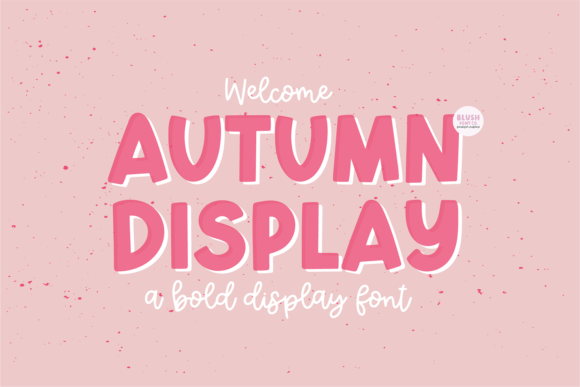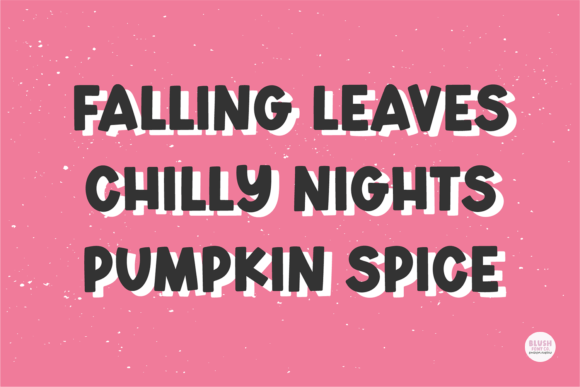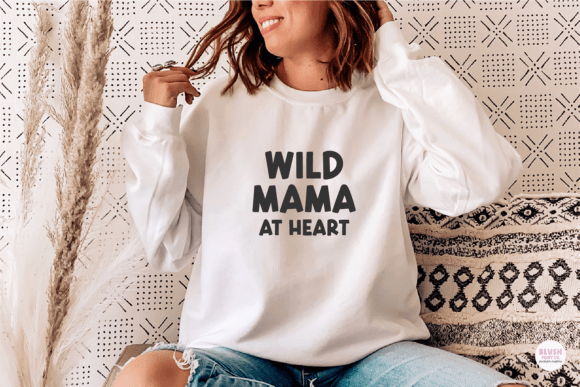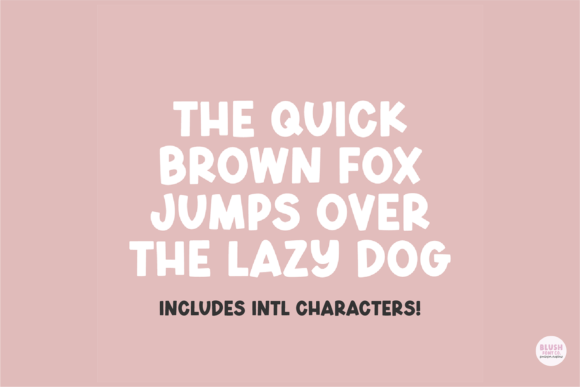
Autumn Display Font
About the Autumn Display Font
From logos to headlines, the Autumn Display Font is the perfect choice for making a lasting impression. Autumn Display is a simple bold retro font that is perfect for social media or crafty projects. Use it for t-shirts, birthday invitations, and more! This font includes basic punctuation marks and international characters.
Autumn Display’s bold, retro style shines in headlines, posters, and short-form branding applications where its strong character makes a statement. It’s ideal for projects needing a vintage feel, from vintage-inspired apparel designs to event posters. However, its weight and condensed letterforms make it less suitable for body text or lengthy paragraphs; readability suffers at smaller sizes.
Pair Autumn Display with a clean sans-serif like Open Sans for a balanced contrast, or a delicate script font like Great Vibes for a touch of elegance. For a more modern feel, a geometric sans-serif like Montserrat would also create a visually pleasing combination.
The overall personality is bold and playful, yet retains a retro sophistication. This makes it a versatile choice for brands seeking a nostalgic yet contemporary aesthetic.